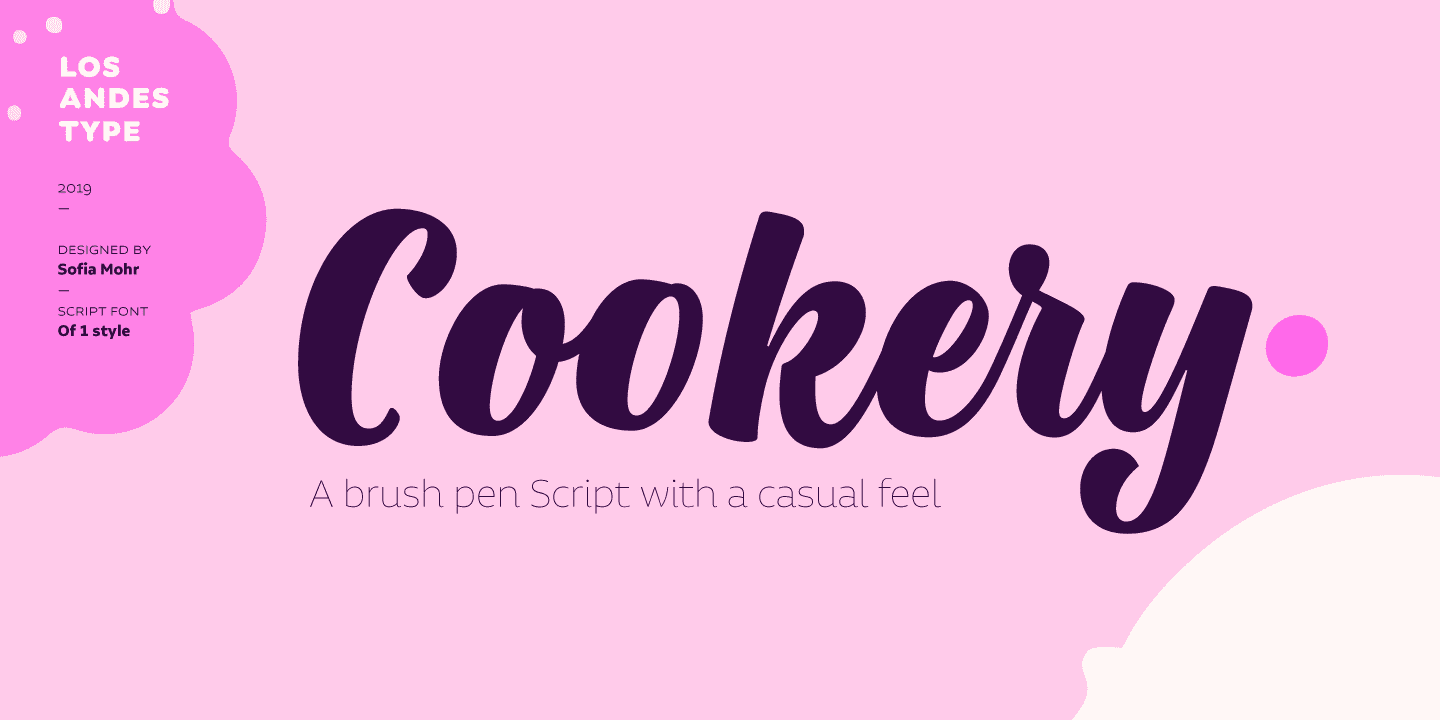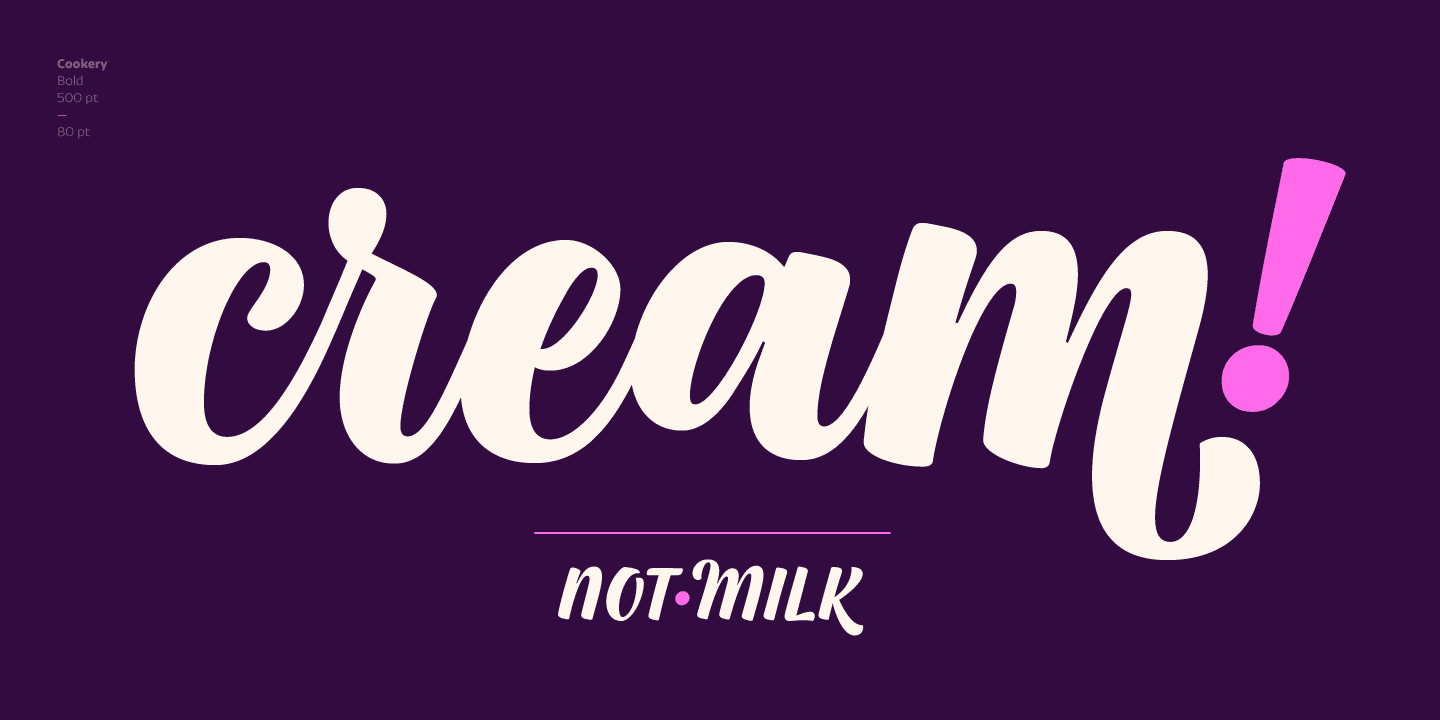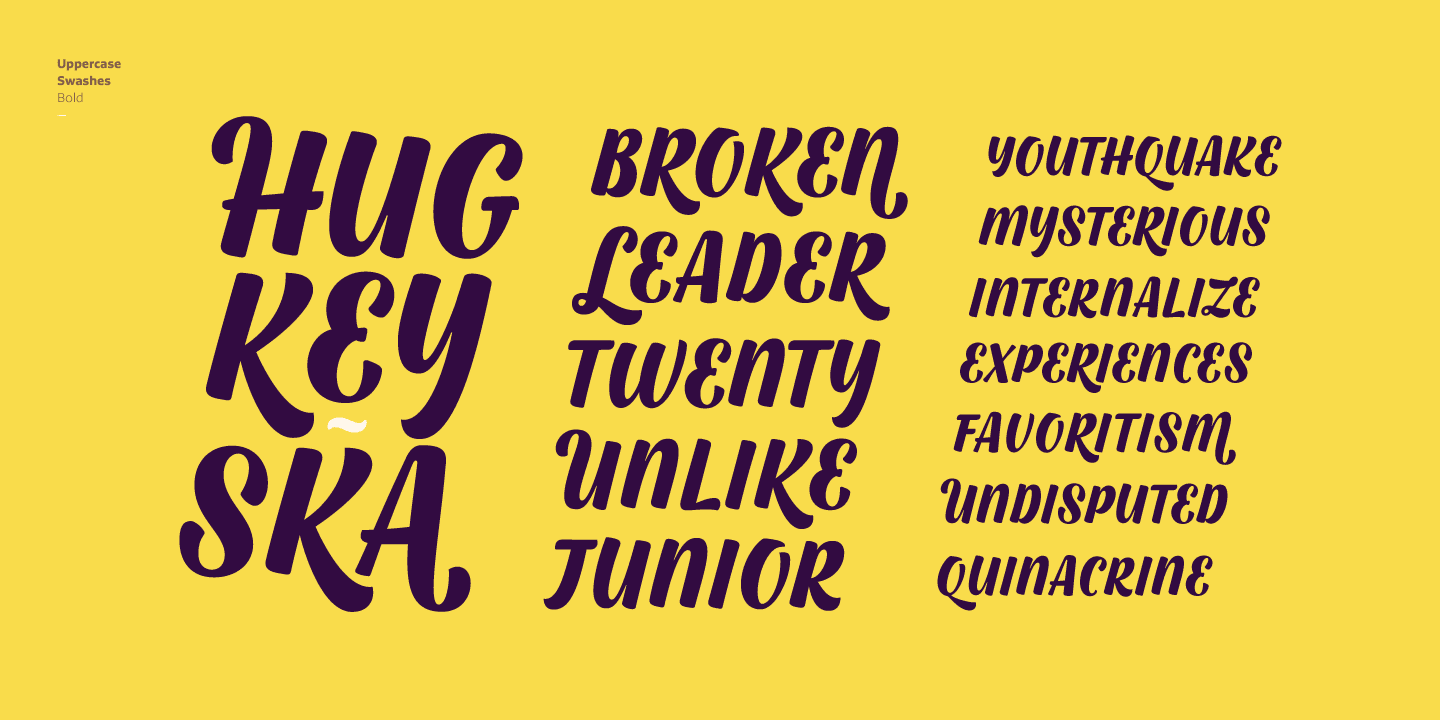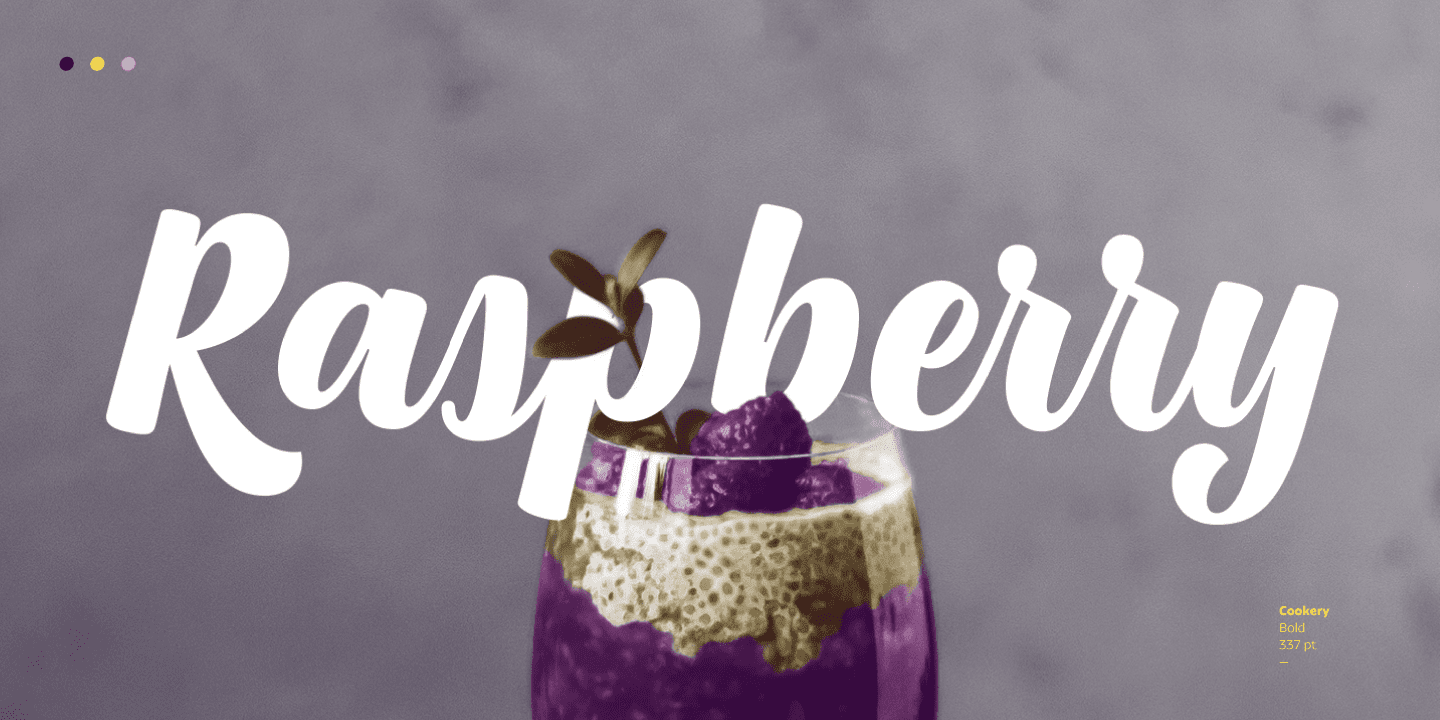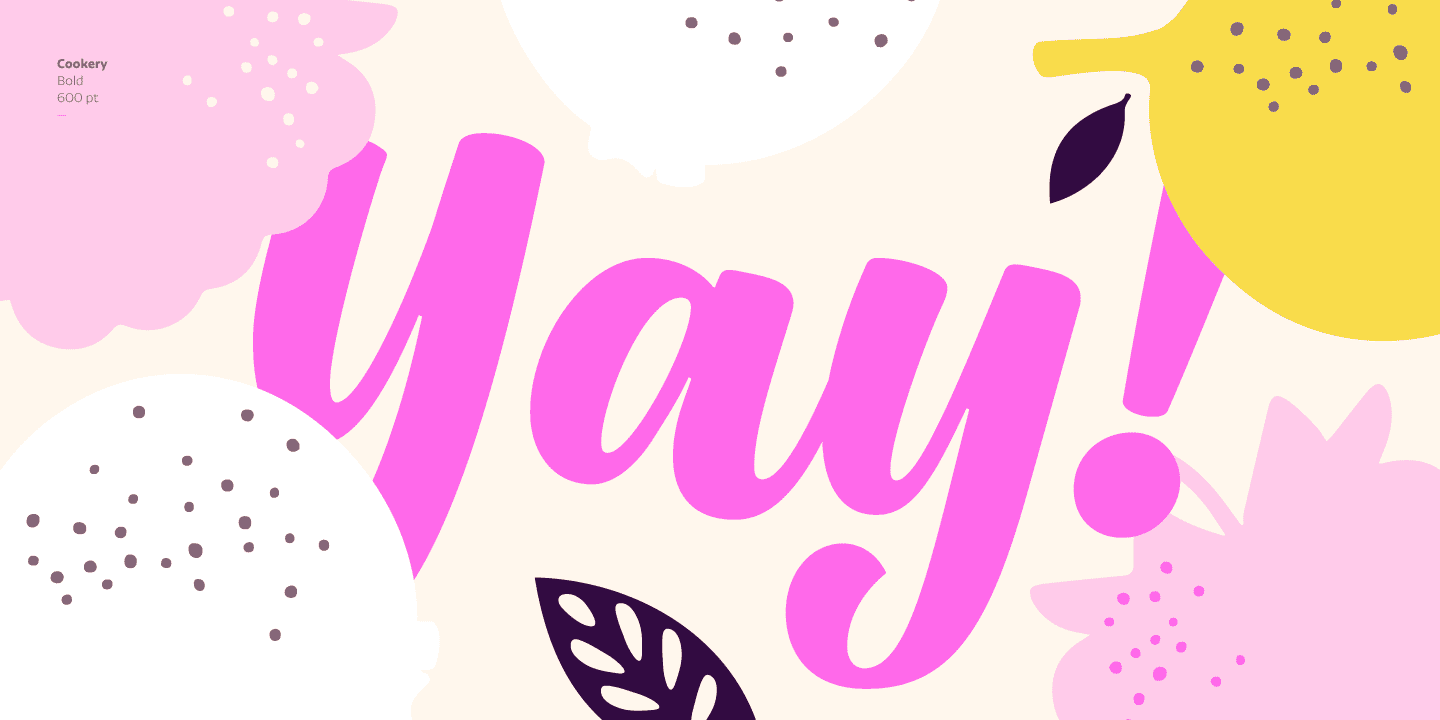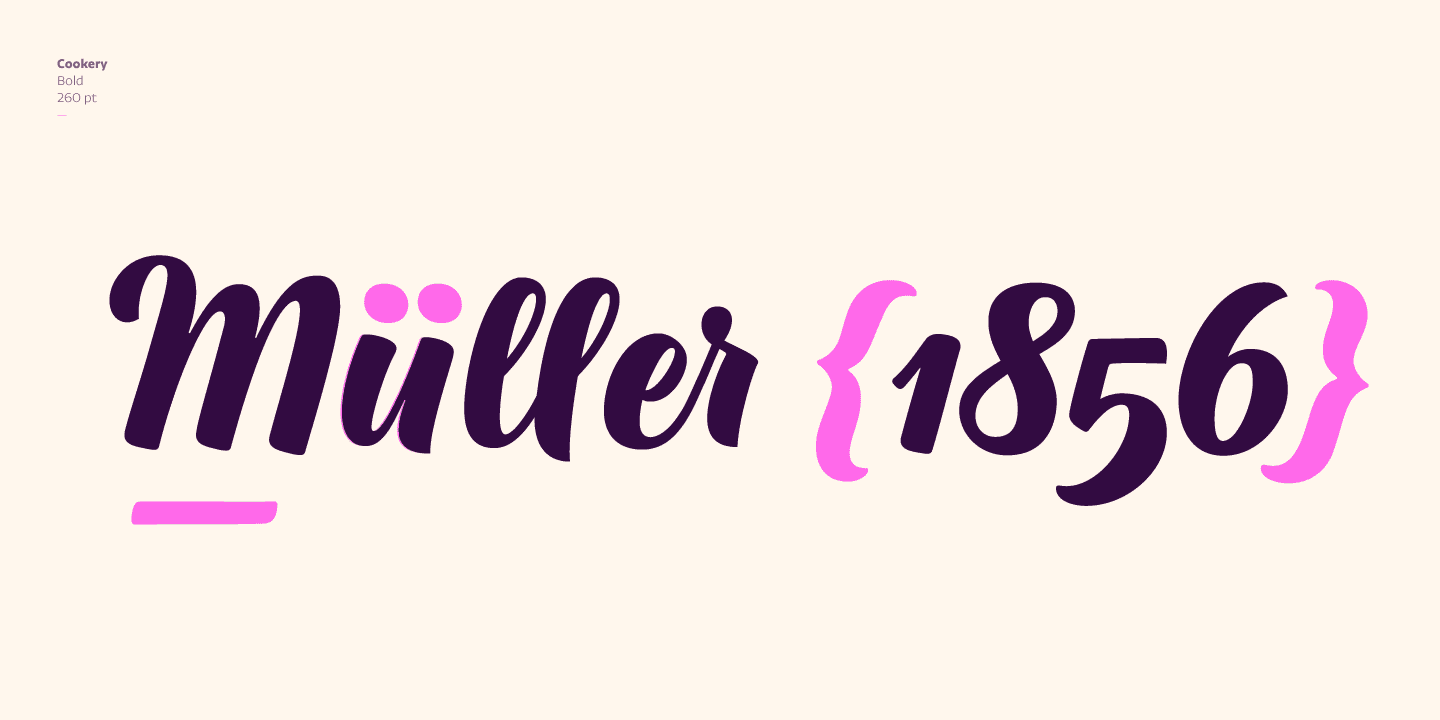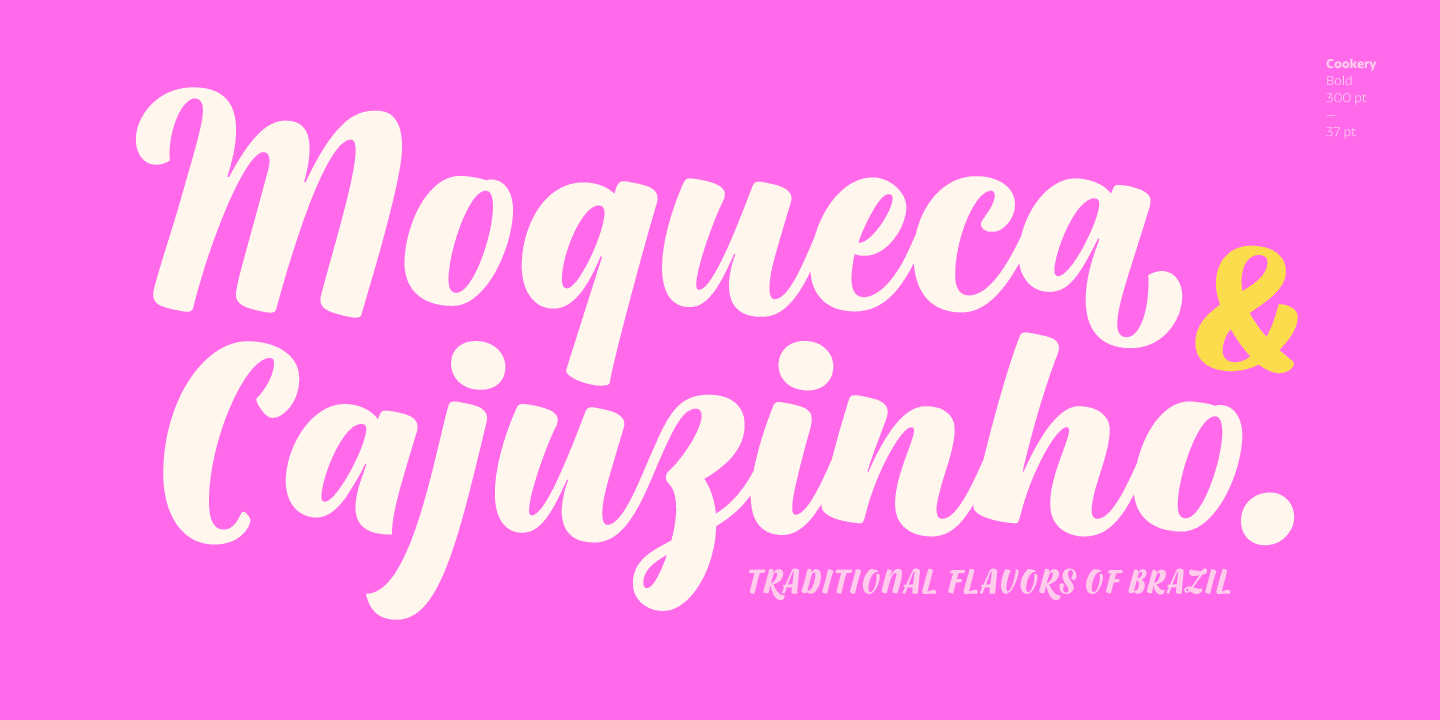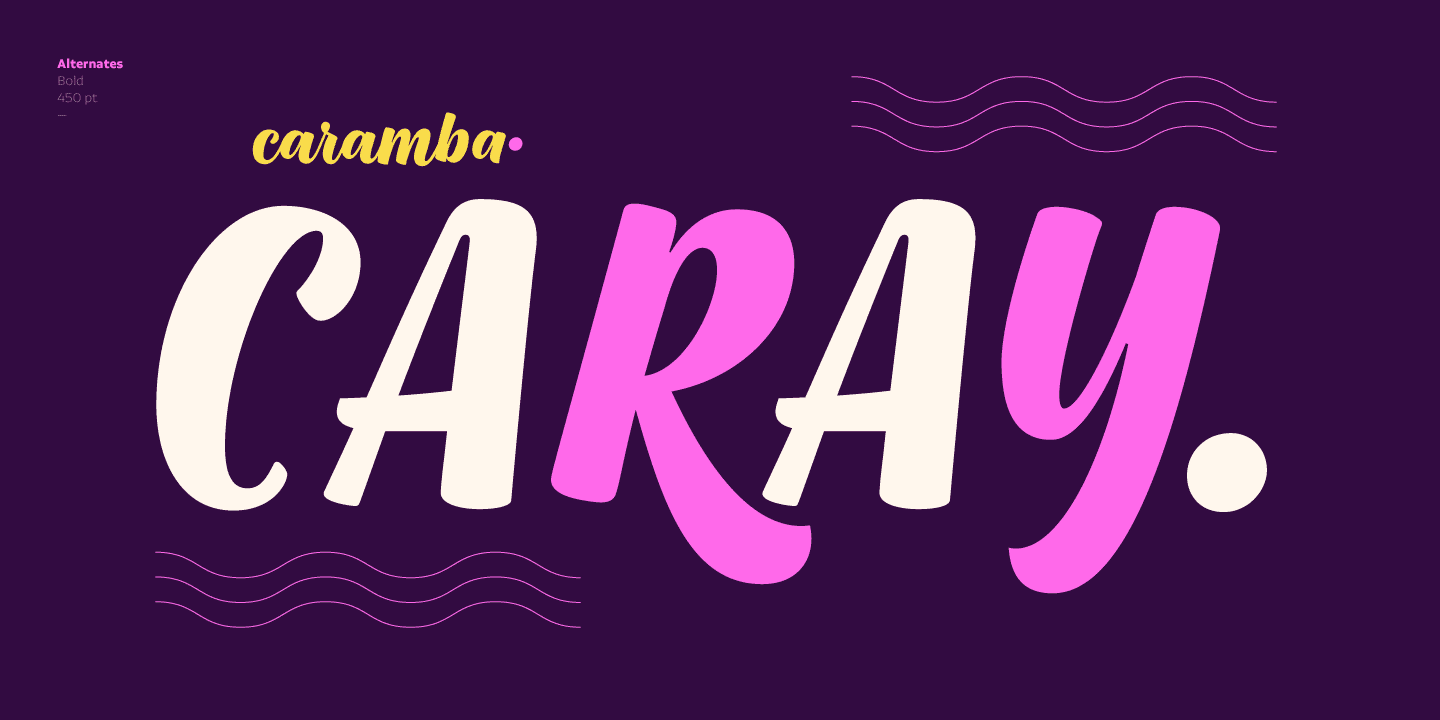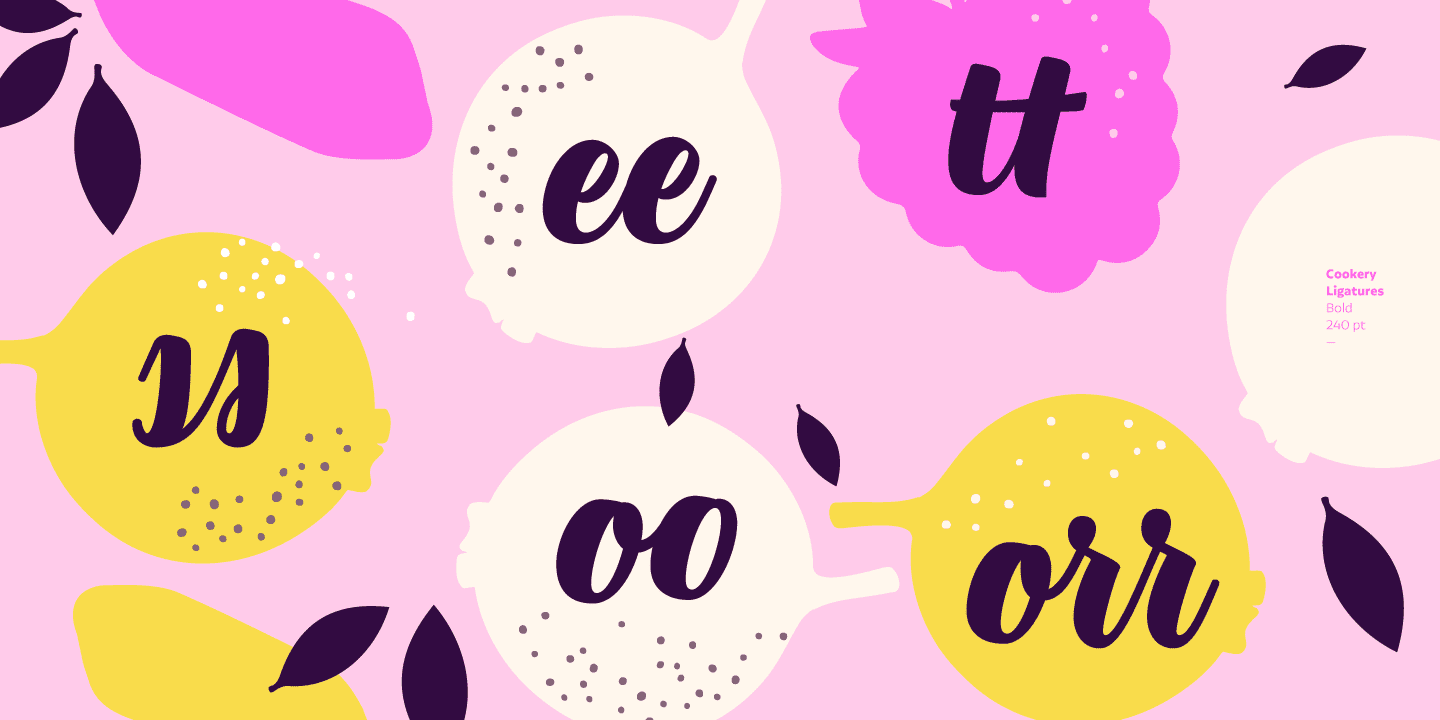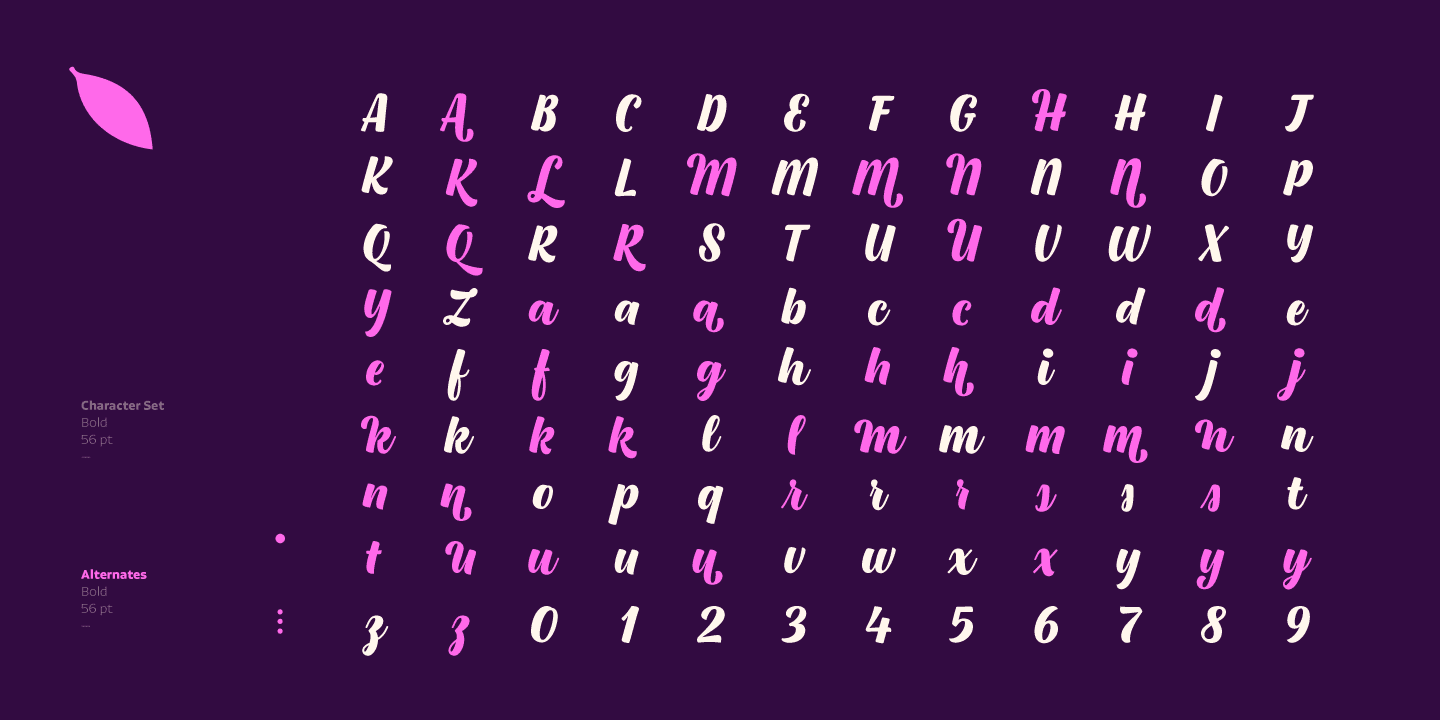
Cookery is a contemporary, friendly and authentic hand-drawn brush pen typeface with irregular baseline. It is well-suited to display use for book covers, logotypes, packaging, restaurant menus, invitation cards and advertising, among other uses.
Get the most out of Cookery's 613-character set by activating OpenType features including letters having the capability to automatically adjust between connected and disconnected forms, alternates, swashes, initial/terminal forms, old style figures, etc. All these alternatives provide a wide range of possibilities to give your compositions a natural, playful and unique look.